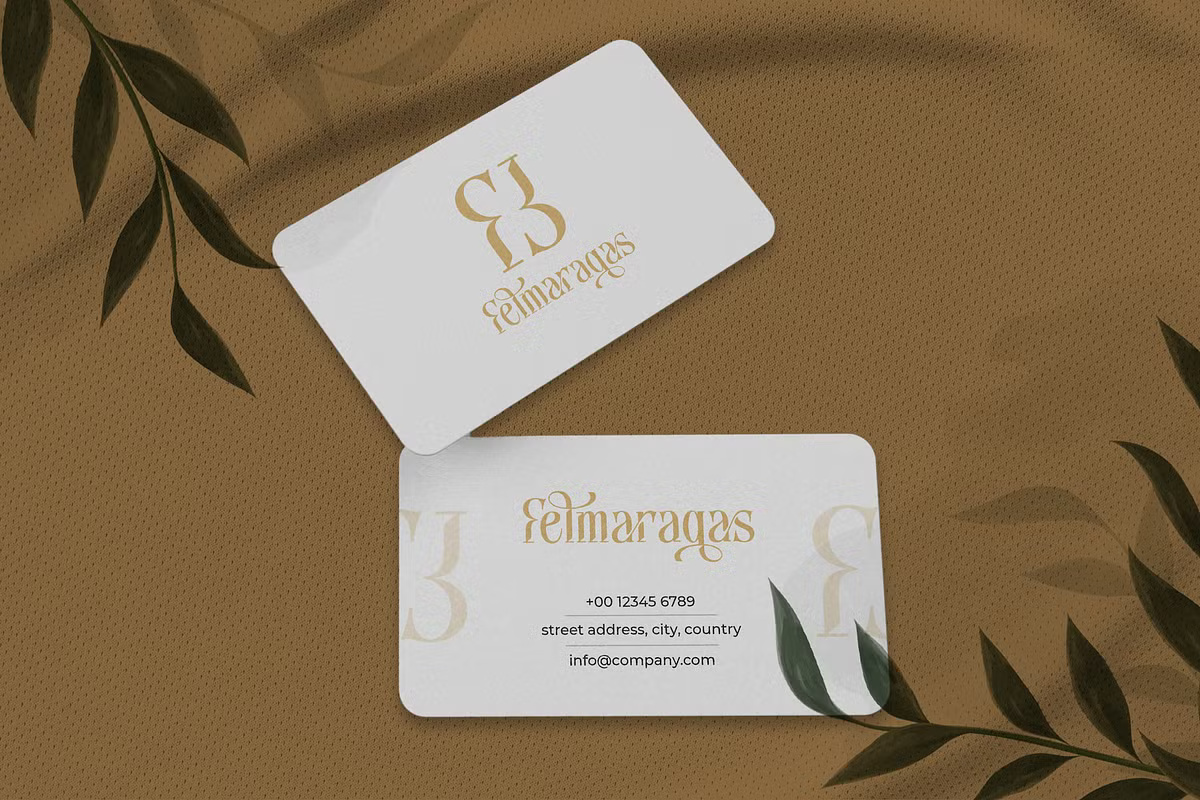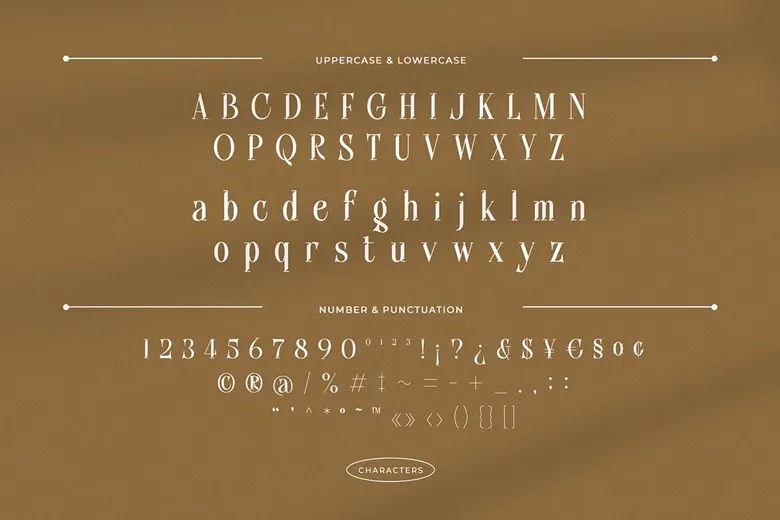
Sabiant is a sharp, high-contrast serif with a few letters that twist out of shape on purpose. The S on the cover curls into a long hook, and pairs like ia and nt join with shared strokes. Gold on dark green, Sabiant looks like the name on a perfume box.
It is designed by Ratna Krismawati (Krismagraph) and sold through Circle Font. The full version has OTF, TTF and WOFF files with ligatures, alternates and multilingual support. The free download here includes OTF and TTF. Business cards in the specimen show how a monogram can be built from its initials.
Best uses for Sabiant
- Luxury brand logos and monograms
- Business cards and stationery
- Perfume and cosmetics packaging
- Wedding invitations
- Fashion and boutique signage
Pair Sabiant with a clean sans. Montserrat in Light works on cards and labels. Lato handles body text. For a calmer serif in long copy, try Cormorant Garamond.
Sabiant Serif Font